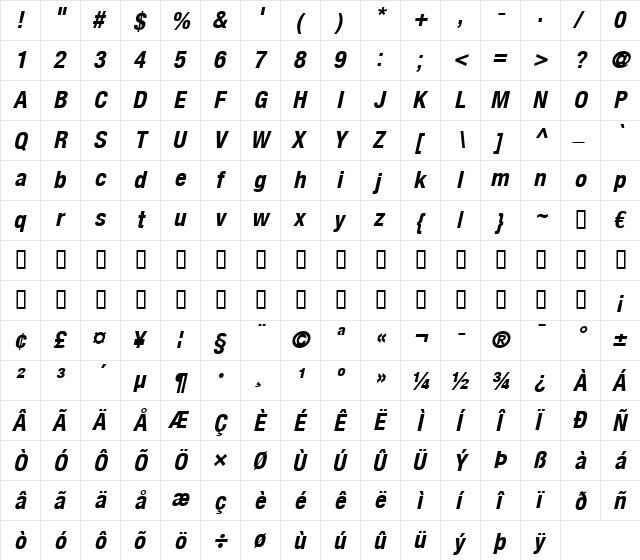
HelveticaNeue LT 57 Cn BoldOblique Font Preview
HelveticaNeue LT 57 Cn BoldOblique
HelveticaNeue LT 57 Cn BoldOblique Font Details
| Style | BoldOblique |
| Foundry | Linotype Library GmbH |
Design Context for HelveticaNeue LT 57 Cn Typeface
HelveticaNeue LT 57 Cn is a composed and adaptable typeface that performs quietly and consistently across a wide range of design contexts. The dynamic lean of this cut emphasises speed and emphasis in any layout. Its bold stroke weight gives it real presence on the page.
Pro Tip: Try HelveticaNeue LT 57 Cn for annotation and caption copy alongside an upright companion — the contrast in angle creates a dynamic but ordered typographic system.